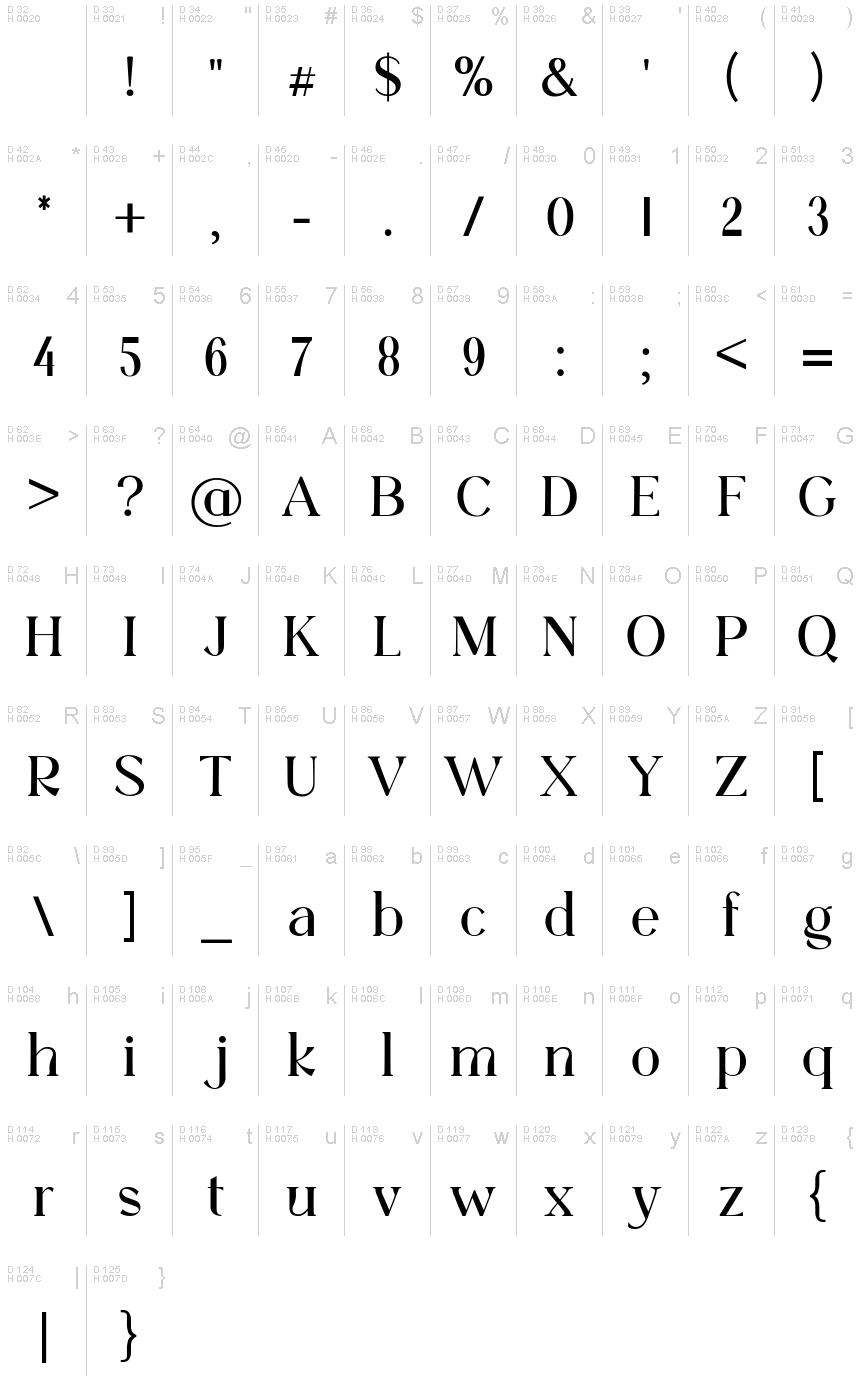
Spinmaster
Spinmaster, a serif font crafted by UI Creative, exudes an air of timeless elegance and sophistication. Its refined letterforms and intricate serifs lend an air of grandeur, captivating the eye with a harmonious balance of tradition and modernity. The font's striking contrast between thick and thin strokes creates a sense of depth and dimension, making it a compelling choice for editorial layouts, book covers, and high-end branding initiatives.
This versatile font's versatility shines through, making it a versatile choice for a wide range of design applications. Its classic yet contemporary aesthetic lends itself well to editorial projects, from magazine mastheads to prestigious book covers. Spinmaster's refined elegance also makes it an ideal selection for upscale branding and packaging, where a timeless, elegant look is paramount. Whether used in headlines, subheadings, or body text, Spinmaster's distinctive flair is sure to elevate any design.